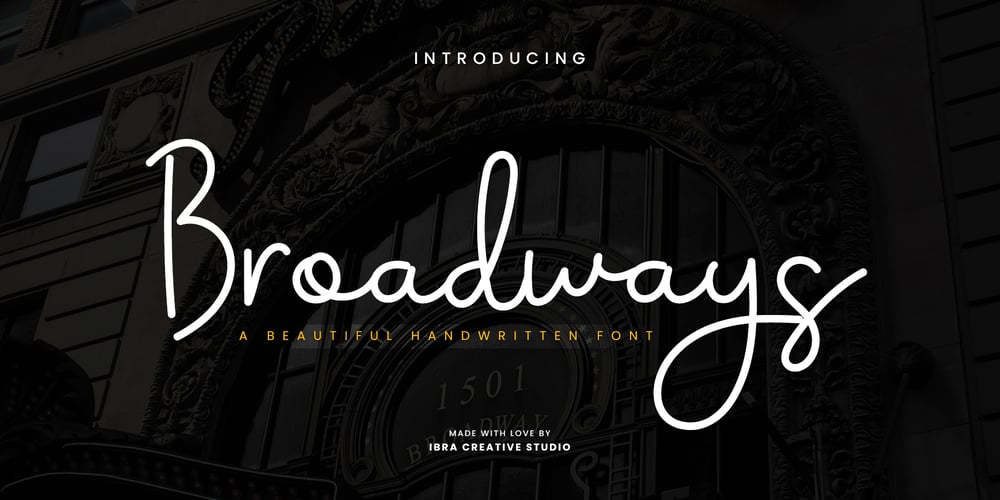
Broadways Beautiful Font Family was designed by Roisatul Azizah and published by IbraCreative. Broadways Beautiful contains 1 styles and family package options. Broadways Beautiful is an enchanting handwritten font that captures the essence of elegance and grace. With its meticulously crafted letterforms, each stroke in Broadways flows seamlessly, exuding a timeless and sophisticated beauty. The gentle curves and delicate details of this font give it a handcrafted and personalized touch, making it a perfect choice for projects that demand a sense of refinement and charm. Broadways adds a touch of allure to wedding invitations, luxury branding, and artistic displays. Its versatility is evident in its ability to seamlessly adapt to various design contexts, infusing each project with a captivating and beautiful handwritten aesthetic. With Broadways, every character is a work of art, enhancing the visual appeal of any creative endeavor.